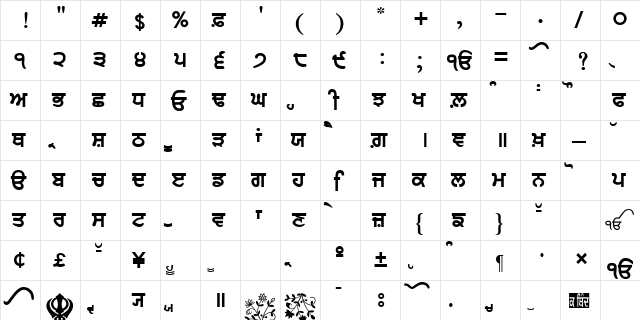
GurbaniAkharThick Regular
Design Context for GurbaniAkharThick Typeface
GurbaniAkharThick takes a measured approach to typography — its balanced proportions and neutral character make it a reliable workhorse for both digital and print work.